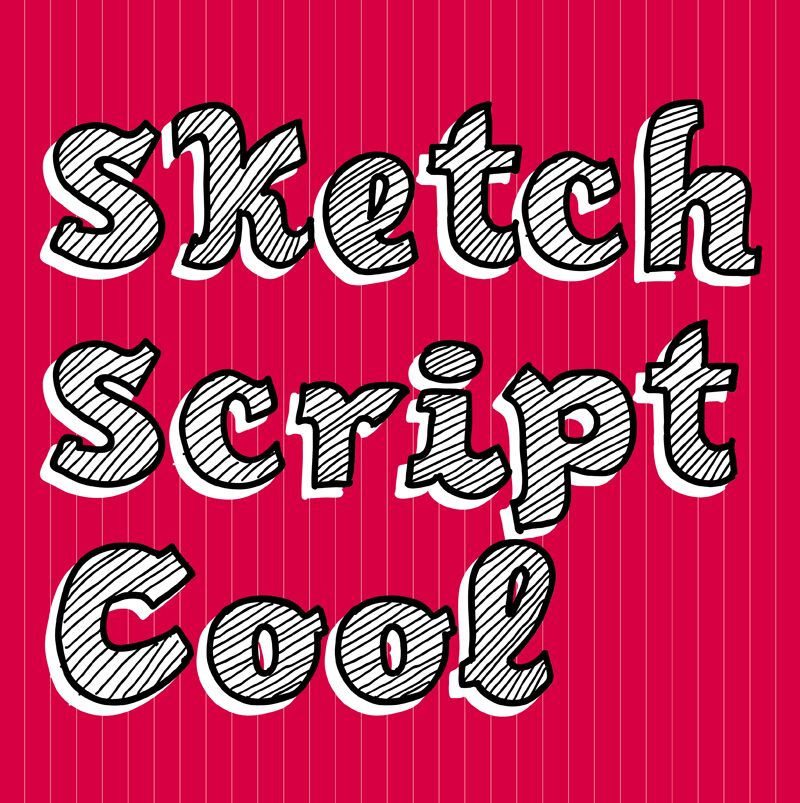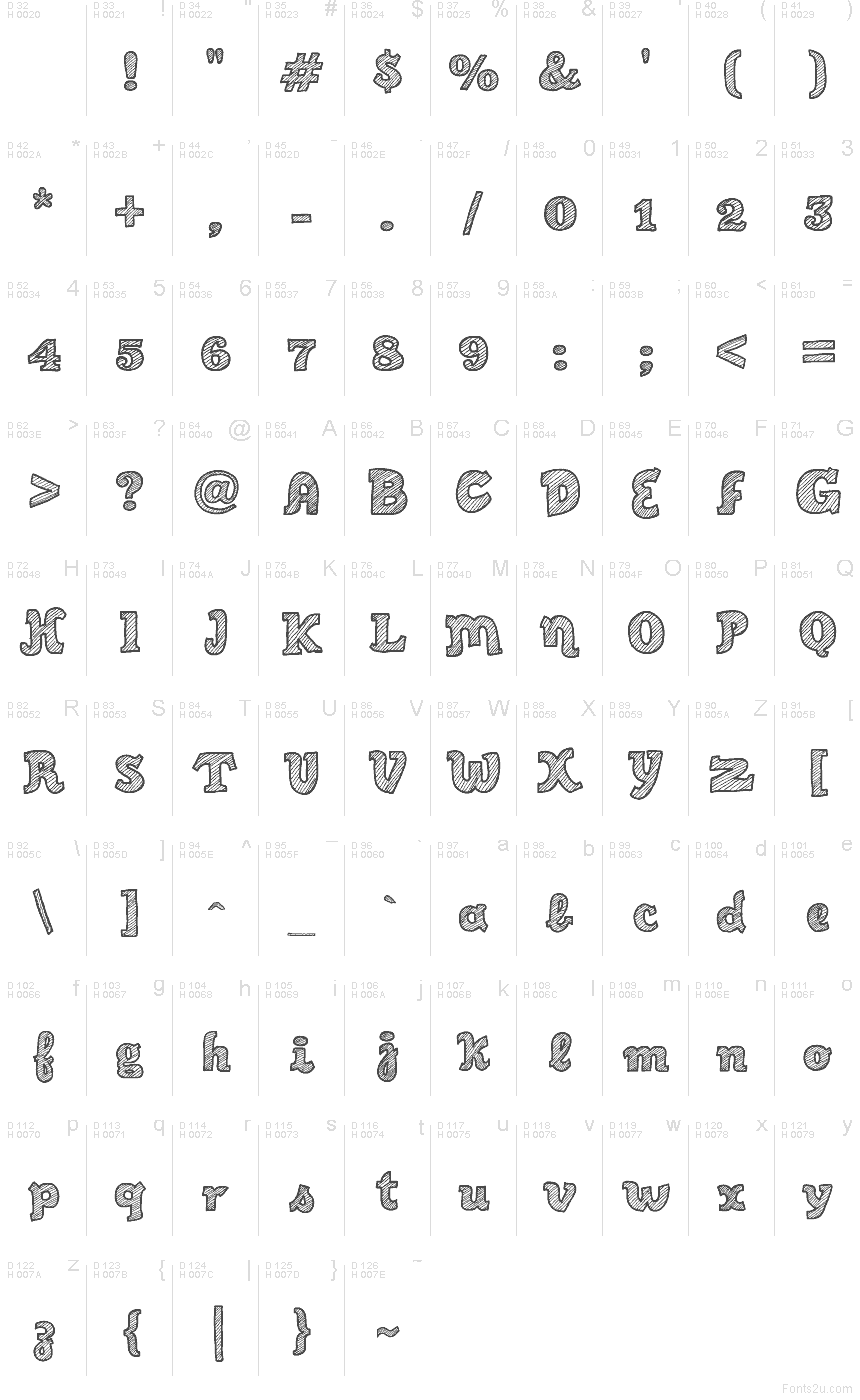
Sketch Script Cool font by Galdino Otten Fonts is a free cartoon display typeface with a scribbly, cross‑hatched texture that looks like it was drawn straight from a sketchbook. Each letter feels puffed, playful, and a little wobbly, as if outlined in pen and shaded in with quick pencil strokes, giving your words a lively, hand‑made buzz on the page.
Using Sketch Script Cool, headlines instantly gain that doodled-on-the-margins energy that works beautifully for kids’ posters, classroom materials, comics, DIY crafts, party invitations, and playful branding. This free font shines when set big so its inky hatching and chunky curves stay crisp; pair it with a simple rounded sans serif for body text to keep things readable while letting the sketched script do the talking.
Sketch Script Cool